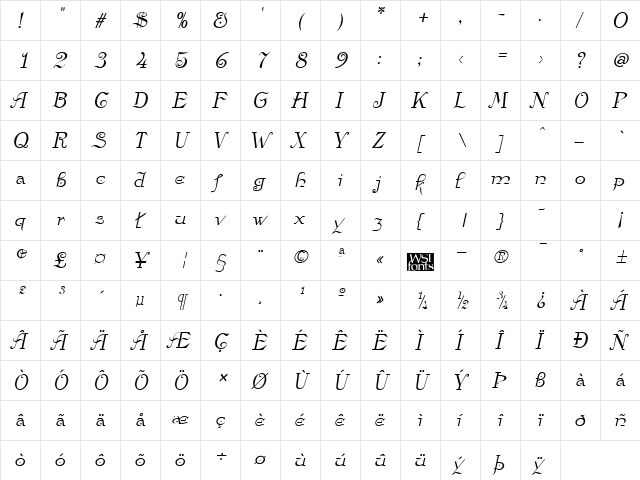
Anglican Italic
Design Context for Anglican Typeface
Anglican takes a measured approach to typography — its balanced proportions and neutral character make it a reliable workhorse for both digital and print work. Its italic angle brings a sense of urgency and motion to the letterforms.
Pro Tip: Use Anglican for emphasis, pull quotes, and subheadings where its slanted energy can add rhythm to the layout.